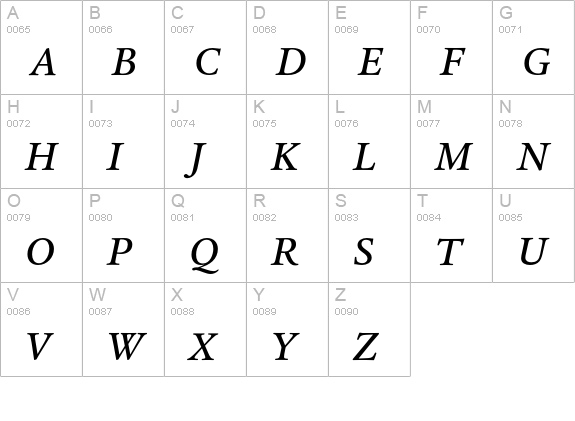
The LegacySerifEF-MediumItalic font is a beautiful and elegant typeface that exudes a sense of timeless sophistication. With its medium weight and delicate italic slant, this font adds a touch of grace and refinement to any design project. Designed with meticulous attention to detail, LegacySerifEF-MediumItalic boasts perfectly balanced letterforms, smooth curves, and subtle calligraphic elements. Its classic serifs lend a touch of traditional charm, while the italic style imparts a sense of elegance and dynamism. Whether used for headlines, body text, or decorative purposes, LegacySerifEF-MediumItalic is a versatile font that adapts effortlessly to various design styles. Its legibility and balanced proportions make it a great choice for print materials such as magazines, brochures, and invitations, as well as digital media like websites and social media graphics. One of the most remarkable aspects of LegacySerifEF-MediumItalic is that it is available for free download at FontsMarket.com. This means that designers and creatives can easily access and utilize this exquisite typeface without any financial constraints. With just a few clicks, you can enhance your projects with the beauty and sophistication of LegacySerifEF-MediumItalic. So why wait? Discover the elegance and versatility of LegacySerifEF-MediumItalic today. Visit FontsMarket.com and get your hands on this exquisite font that seamlessly blends tradition with a modern flair. Let LegacySerifEF-MediumItalic elevate your designs and captivate your audience with its timeless charm.